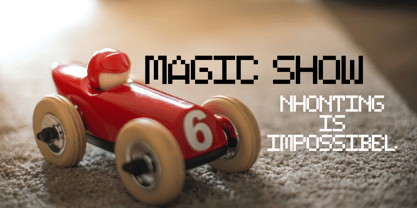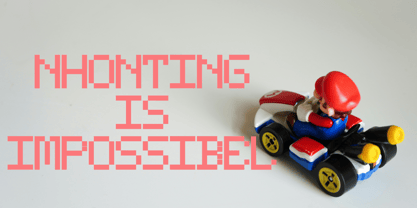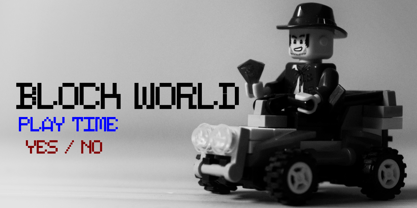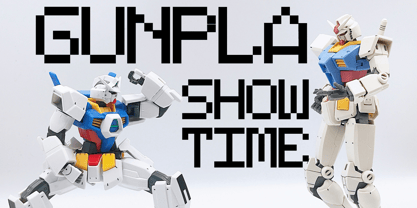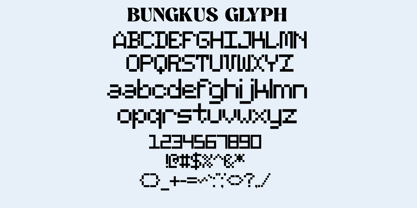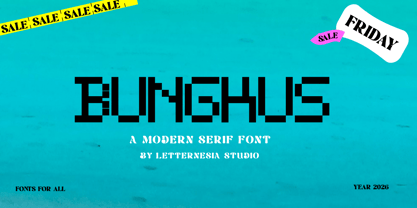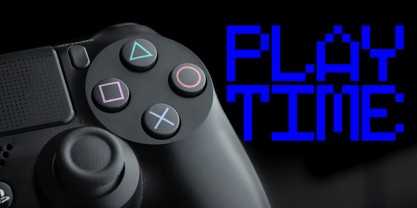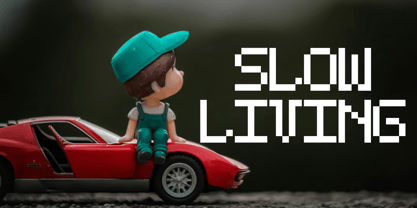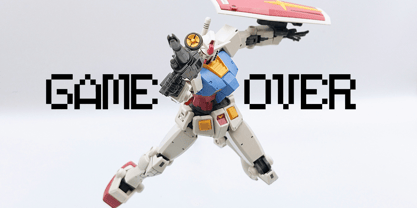
Bungkus
Die Schriftfamilie Bungkus wurde von Ta Siyo entworfen und von Letternesia studio veröffentlicht. Bungkus enthält 2 Stile und Familienpaketoptionen. Mehr über diese Familie
BUNKUS is a powerful display typeface crafted to do one thing perfectly: grab attention instantly and make your designs impossible to ignore. With its bold, chunky letterforms and striking personality, BUNKUS delivers a strong visual impact that stands out in any layout. The design blends modern aesthetics with a playful edge, making it highly versatile while still maintaining a unique and memorable look. Every character is carefully shaped to ensure maximum readability with maximum style—a key combination for designers who want both creativity and commercial value.
Bungkus